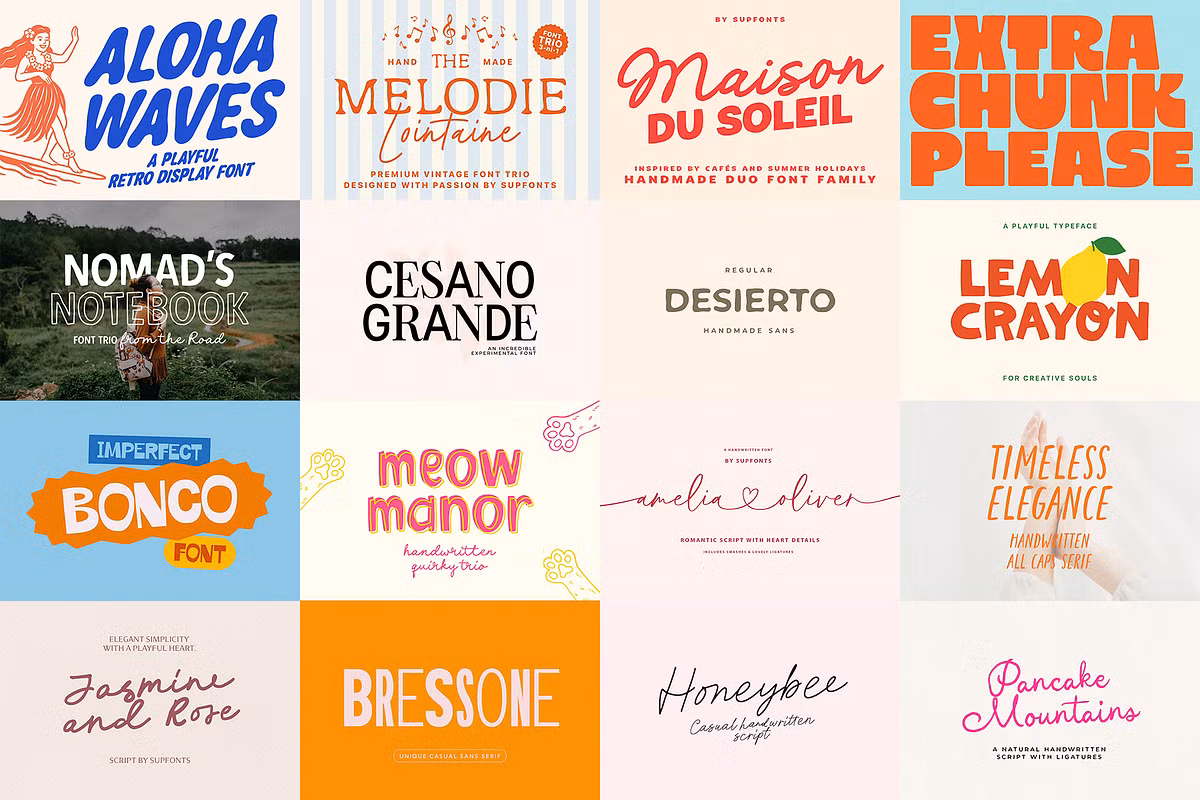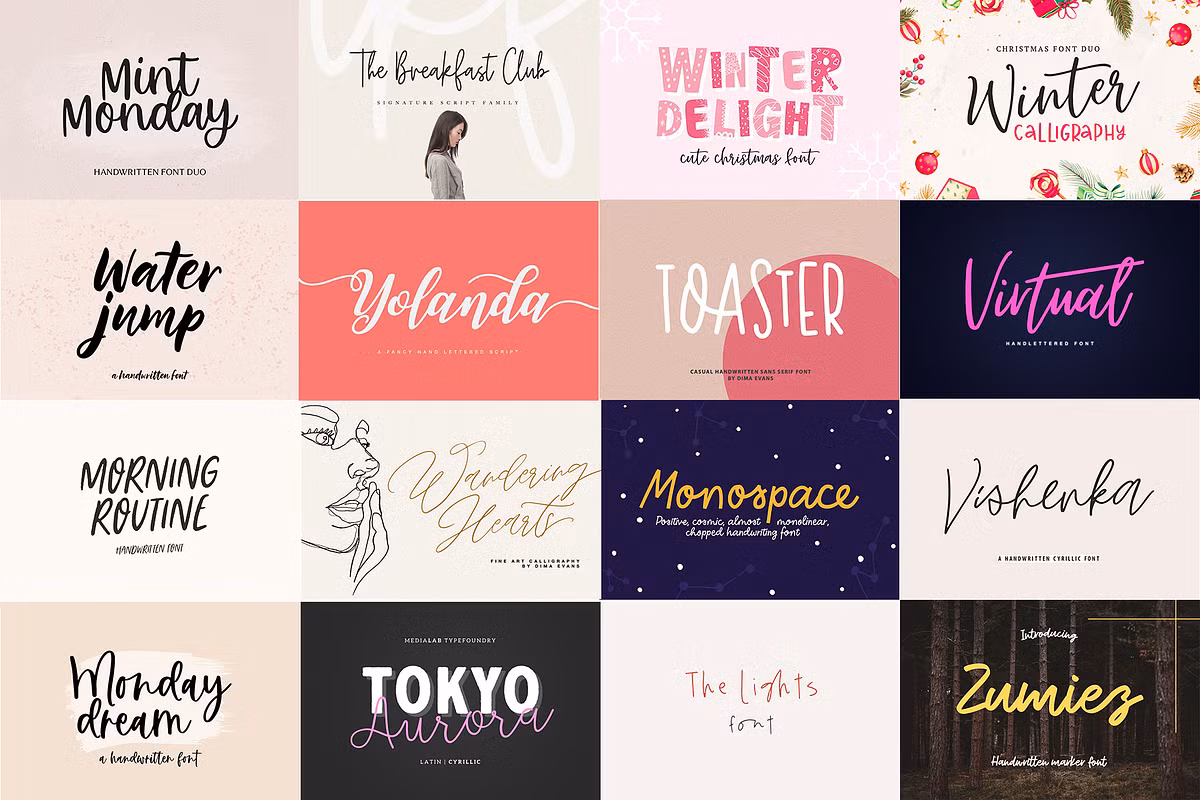
ALL MY FONTS Bundle: Extensive Collection of 298 Font Families for All Projects
The ALL MY FONTS Bundle is really something special – it’s a huge collection of 298 font families, with a total of 385 different fonts. This means that designers, crafters, and anyone who loves to be creative has a massive range of options to choose from, no matter what project they’re working on. Need to make some beautiful wedding invitations? This bundle has got you covered. Want to create a stylish logo or poster? You’ll find plenty of inspiration here. And if you’re into making greeting cards or coming up with inspirational quotes for social media, you’ll love the variety of fonts on offer. Plus, all the fonts are compatible with Cricut cutting machines, which is great news for crafty people who love to work with these machines.
With so many fonts to choose from, you’ll never be stuck for ideas again – and you’ll be able to add a personal touch to all your projects. Whether you’re a professional designer or just someone who loves to get creative in their spare time, the ALL MY FONTS Bundle is a fantastic resource to have at your fingertips.
A preview of various font styles available in the bundle
Explore diverse font styles in the bundle.
The ALL MY FONTS Bundle is a treasure trove of design styles, offering something for every project. Whether you’re looking for elegant script fonts to add a touch of romance to your wedding invitations, or bold sans-serif fonts to give your logos and branding a modern edge, this collection has got you covered. With a wide range of styles to choose from, you’re sure to find the perfect font to match your project’s unique aesthetic.
Some of the popular styles included in the bundle are worth exploring, as they can help take your design to the next level. From classic to contemporary, the ALL MY FONTS Bundle is a one-stop shop for all your font needs, providing a vast array of options to suit every design requirement.
• Serif Fonts: Perfect for traditional and formal designs.
• Sans-Serif Fonts: Clean and modern, suitable for logos and websites.
• Script Fonts: Flowing and decorative, great for invitations and personal branding.
• Display Fonts: Eye-catching and unique, perfect for headlines and posters.
A selection of serif and sans-serif fonts
Variety of serif and sans-serif fonts available.
With such a variety of styles, the ALL MY FONTS Bundle allows you to explore different design directions and enhance your creative projects effortlessly.
Character Sets
The ALL MY FONTS Bundle really stands out with its huge selection of characters. Most of the fonts in this collection can be used in many different languages and have a lot of special characters, including some that use the Cyrillic alphabet. This is really helpful for designers who work on projects that need to be understood by people who speak different languages or need to use specific languages.
It’s great for anyone who wants to make sure their work can be read and understood by a wide range of people. When you’re getting ready to buy something, it’s a good idea to take a look at all the fonts and see what characters they can do. You can type in a special area to preview them, so you know exactly what you’re getting.
Illustration of character sets in various fonts
Wide range of character sets included in the bundle.
This way, you can pick the right fonts for what you’re working on and be sure they have all the characters you need. Being able to use so many different characters makes the ALL MY FONTS Bundle really useful for anyone who works in a creative field.
Use Cases
The ALL MY FONTS Bundle is designed to accommodate a multitude of use cases, making it suitable for both personal and commercial projects. Here are some of the ways you can utilize this extensive collection:
• Wedding Invitations: Create elegant and personalized invitations using the beautiful script fonts.
• Logos: Design unique and stylish logos that stand out with modern sans-serif and display fonts.
• Posters: Make posters that really stand out. Use big, bold letters to catch people’s eye.
• Greeting Cards: Design heartfelt greeting cards for various occasions using a mix of playful and elegant fonts.
• Social Media Posts: Enhance your social media presence with inspirational quotes presented in attractive typography.
With such versatility, the ALL MY FONTS Bundle empowers you to bring your creative visions to life across numerous platforms and mediums.